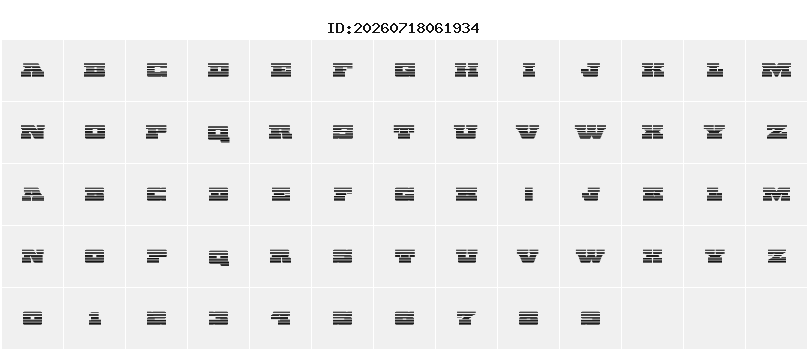
Chicago Express Gradient Preview
About Chicago Express Gradient.ttf
Chicago Express Gradient.ttf is a modern, elegant sans-serif font designed for ultimate readability and visual harmony. Perfect for branding, headlines, web design, and print materials.